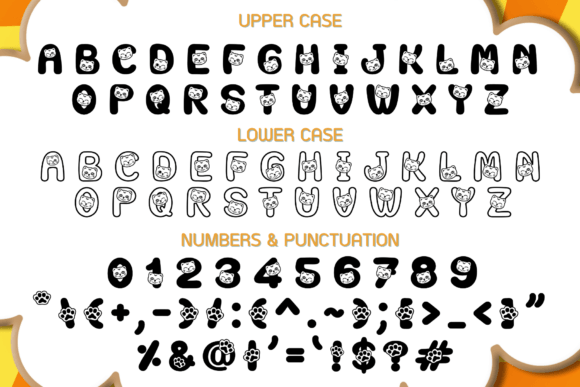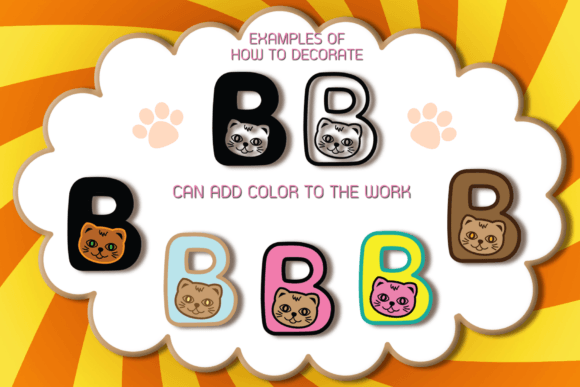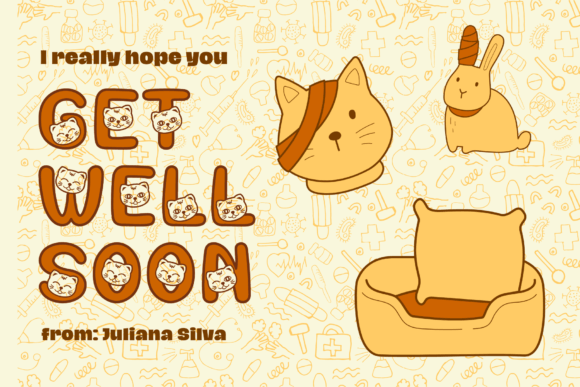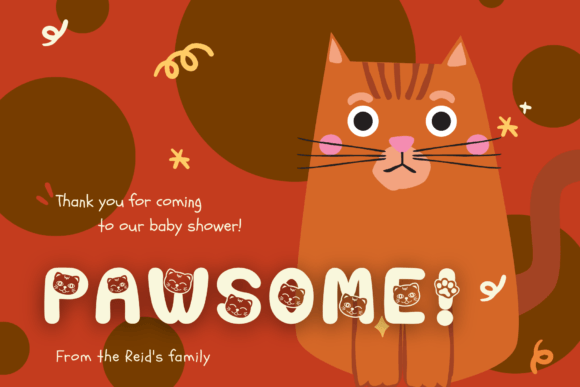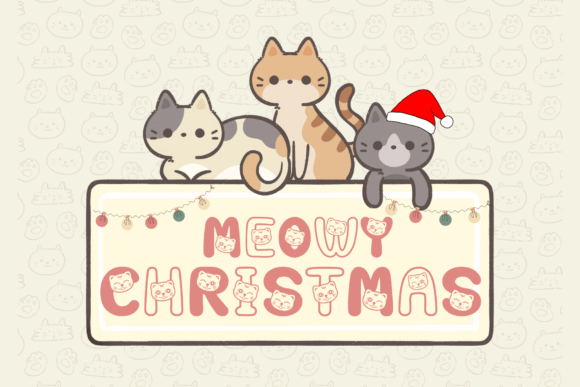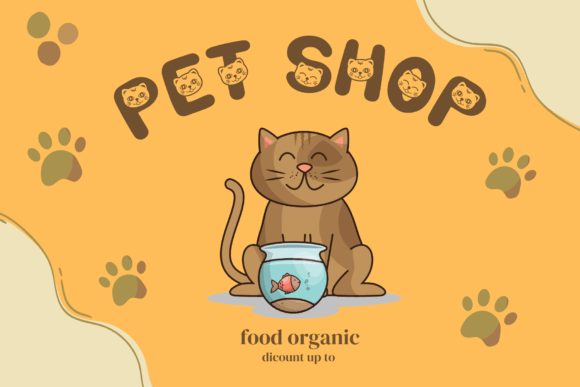
Cute Cat Font: The Purrfect Addition to Your Pet-Themed Projects
Are you a designer or crafter looking for a unique and playful font to add a touch of whimsy to your pet-related projects? Look no further than the Cute Cat Font! This adorable display font features cute cat faces inside the letters, making it the perfect choice for any project that celebrates the joy and companionship of pets.
A Playful and Adorable Design
The Cute Cat Font is a one-of-a-kind design that is sure to capture the hearts of pet lovers everywhere. The font features cute cat faces cleverly integrated into the letters, giving it a playful and adorable feel that’s hard to resist. Whether you’re working on a project for a pet store, animal shelter, or simply a pet-themed craft, this font is sure to add a touch of personality and charm.
Perfect for Pet-Related Projects
The Cute Cat Font is specifically designed with pet-related projects in mind. Its clear and legible style ensures easy readability, making it perfect for use in a variety of applications, from signage and posters to t-shirts and craft projects. The font’s playful design also makes it a great choice for projects that require a more lighthearted and fun approach, such as pet-themed party invitations or social media graphics.
Key Features of the Cute Cat Font
- Cute cat faces inside the letters: The font features adorable cat faces cleverly integrated into the letters, giving it a unique and playful design.
- Clear and legible style: The font’s clear and legible style ensures easy readability, making it perfect for use in a variety of applications.
- Playful and adorable design: The font’s playful design is sure to capture the hearts of pet lovers everywhere.
- Perfect for pet-related projects: The font is specifically designed with pet-related projects in mind, making it a great choice for projects that celebrate the joy and companionship of pets.
How to Use the Cute Cat Font
The Cute Cat Font is easy to use and can be incorporated into a variety of projects. Here are a few ideas to get you started:
- Pet store signage: Use the Cute Cat Font to create eye-catching signage for your pet store or animal shelter.
- Pet-themed crafts: Add a touch of personality to your pet-themed crafts, such as pet-themed t-shirts, mugs, or party invitations.
- Social media graphics: Use the Cute Cat Font to create fun and engaging social media graphics that celebrate the joy and companionship of pets.
Why Choose the Cute Cat Font?
There are many fonts to choose from, but the Cute Cat Font stands out for its unique and playful design. Here are a few reasons why you should choose the Cute Cat Font for your next project:
- Unique design: The Cute Cat Font features a one-of-a-kind design that is sure to capture the hearts of pet lovers everywhere.
- Easy to read: The font’s clear and legible style ensures easy readability, making it perfect for use in a variety of applications.
- Perfect for pet-related projects: The font is specifically designed with pet-related projects in mind, making it a great choice for projects that celebrate the joy and companionship of pets.
The Cute Cat Font is a playful and adorable display font that is perfect for any pet-related project. Its unique design features cute cat faces inside the letters, making it a great choice for projects that celebrate the joy and companionship of pets. With its clear and legible style, the Cute Cat Font is easy to read and can be used in a variety of applications, from signage and posters to t-shirts and craft projects. So why wait? Download the Cute Cat Font today and add a touch of personality to your next project!